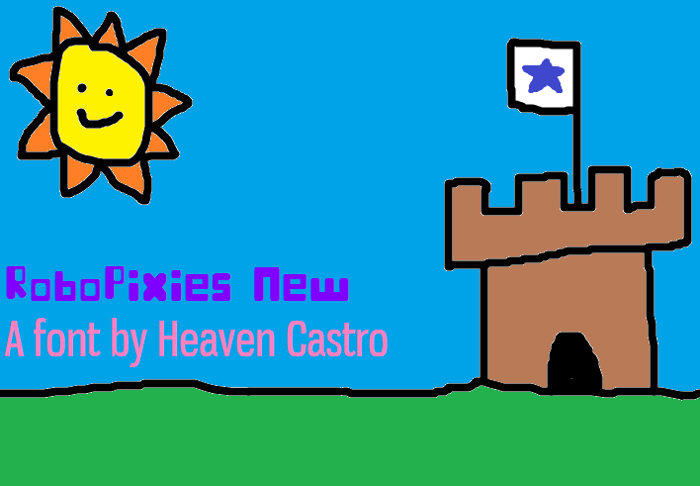
RoboPixies New Font
Here is the lowercase version of RoboPixies with all of its glyphs are neat and nice!
RoboPixies New is a lowercase brother of RoboPixies.